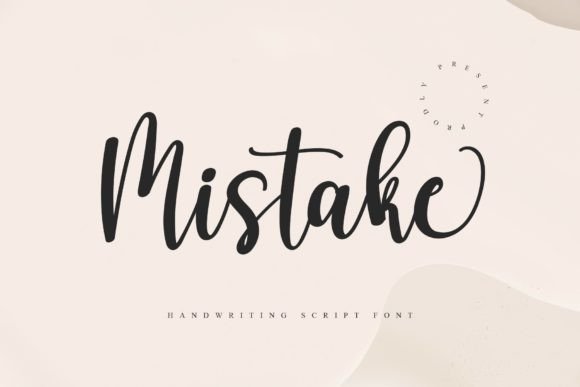
Mistake Font
About Mistake Font
“Mistake” is a superb handwritten font designed to make your work stand out with its elegant and curvy lines. This font is particularly well-suited for a variety of applications, including product packaging, branding projects, magazine covers, social media graphics, wedding materials, or any context where you want to convey a sense of elegance and uniqueness.
The elegant and curvy lines of “Mistake” contribute to its sophisticated and stylish appearance, making it a versatile choice for projects that demand a touch of refinement. Whether applied to labels, logos, or social media posts, this font is crafted to enhance the visual appeal of your designs.
Its suitability for product packaging and branding projects underscores its ability to convey a sense of quality and attention to detail. “Mistake” adds a distinctive flair to your branding materials, helping your products or services stand out in a crowded market.
The versatility of this font extends to various design contexts, making it an excellent choice for expressing words above backgrounds, creating eye-catching headlines, or adding a touch of elegance to any creative project.
In summary, “Mistake” is not just a font; it’s a design tool crafted to elevate your work. Whether you’re working on product packaging, branding, social media graphics, or other design projects, “Mistake” stands out as a superb handwritten font that brings an elegant and unique touch to your creations.